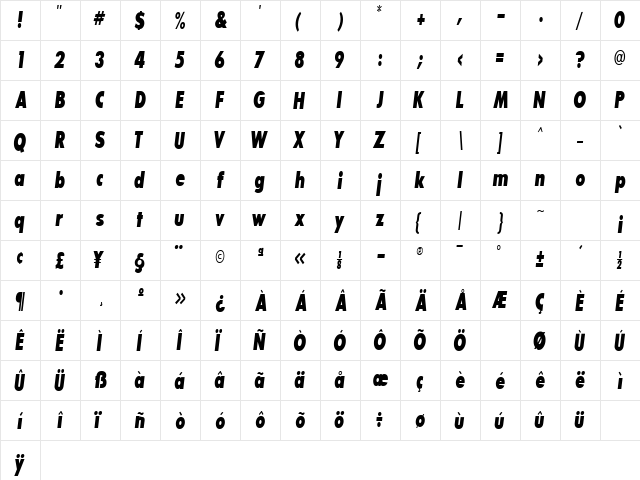
BouganBlackCondSSK Bold Italic Font Preview
Design Context for BouganBlackCondSSK Typeface
BouganBlackCondSSK offers clean, dependable letterforms without strong stylistic allegiance, making it a practical choice for designers who need flexibility. Its italic angle brings a sense of urgency and motion to the letterforms. Its bold stroke weight gives it real presence on the page. The condensed width makes it efficient for tight spaces without sacrificing legibility.
Pro Tip: Use BouganBlackCondSSK for emphasis, pull quotes, and subheadings where its slanted energy can add rhythm to the layout.